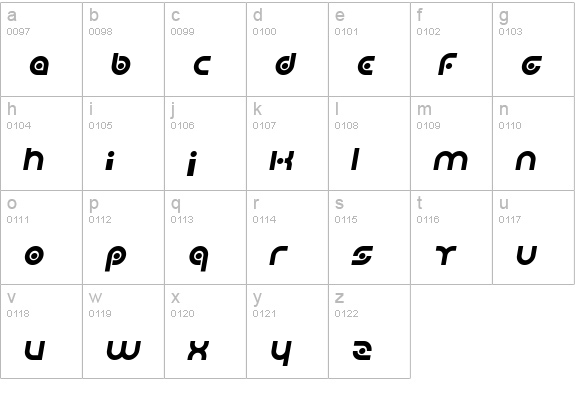
Planetary Orbiter Italic is a distinctive, italic variant in the Planetary typeface family \xE2\x80\x94 well suited to design and typography projects.
Introducing the mesmerizing Planetary Orbiter Italic font, a captivating typeface that effortlessly transports you to the outer realms of the universe. With its sleek and stylish design, this font combines the perfect balance between modernity and cosmic inspiration, making it the ideal choice for all your futuristic and celestial-themed projects. The Planetary Orbiter Italic font boasts a unique and dynamic italicized style, creating a sense of motion and fluidity that captures the essence of intergalactic exploration. Its carefully crafted letterforms effortlessly merge geometric precision with organic curves, resulting in a visually striking and harmonious composition. With its versatility, the Planetary Orbiter Italic font is suitable for a multitude of design applications. Whether you're creating eye-catching headlines, captivating logos, or stylish branding materials, this font will elevate your creations to a whole new dimension. Its distinct personality will surely make your designs stand out from the crowd, leaving a lasting impression on your audience. One of the most impressive aspects of the Planetary Orbiter Italic font is that it is freely available to download at FontsMarket.com. This means that you can unleash your creativity without any limitations or restrictions. Embrace the freedom to experiment with this stunning typeface and let your imagination soar to unimaginable heights. So, if you're seeking a font that encapsulates the awe-inspiring beauty of the cosmos, look no further than Planetary Orbiter Italic. Download it for free at FontsMarket.com and embark on a journey through the vast expanse of space, where the possibilities for design are as limitless as the universe itself.